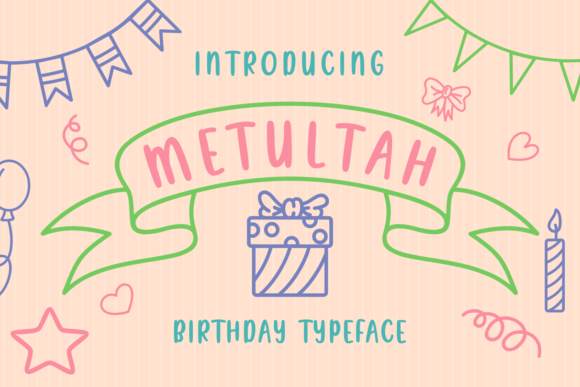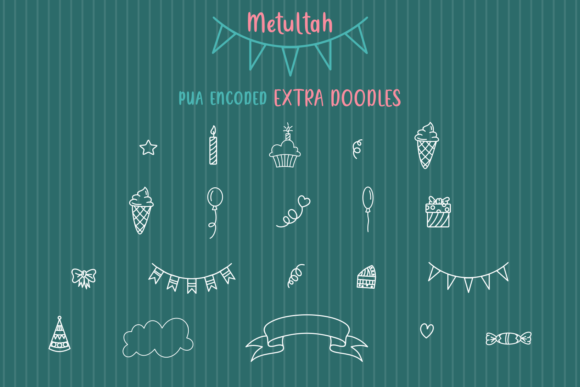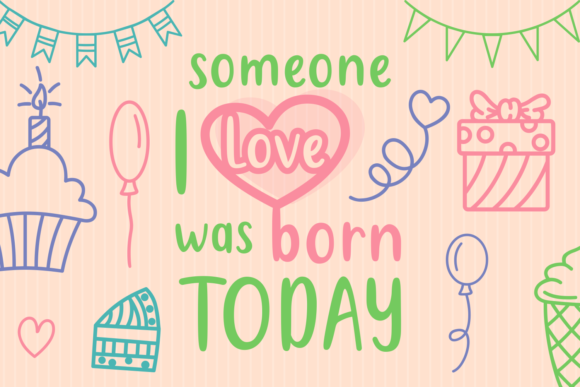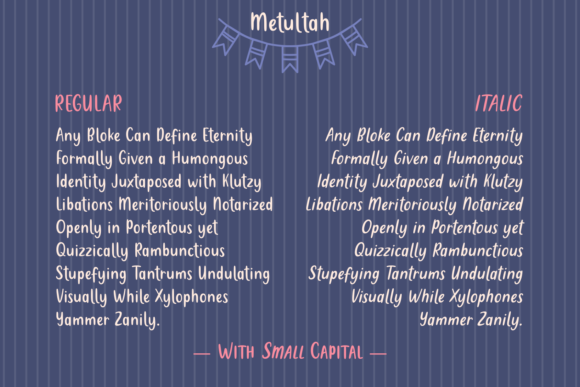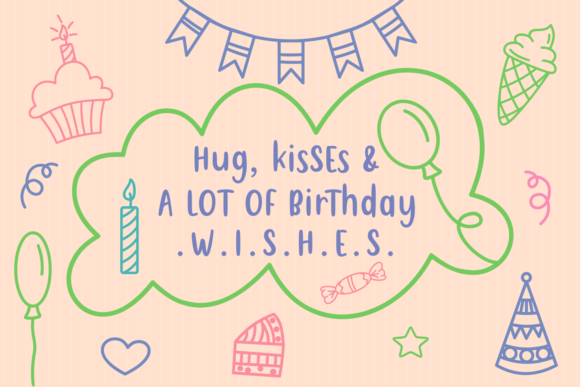
Metultah Font
About Metultah Font
The Metultah is a fun script typeface. It comes in two styles which both will give your design a playful feel. There are extra doodles included to spice up your designs!